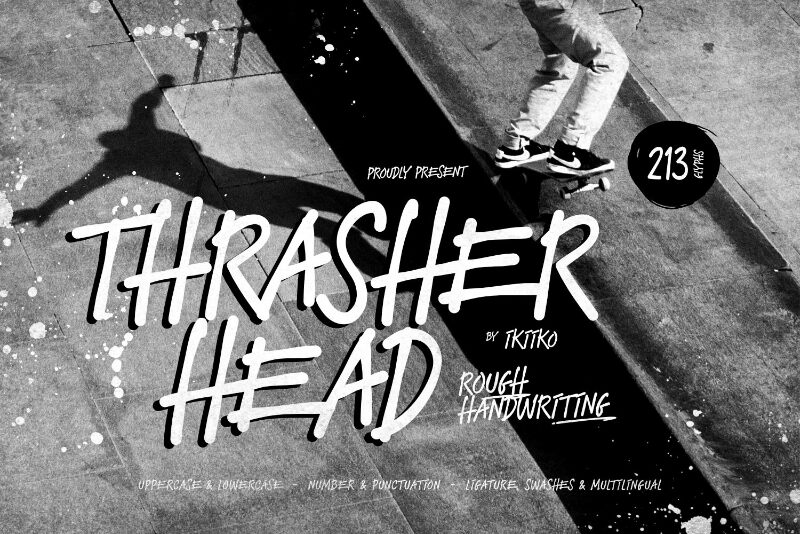
Thrasher Head font by Ikiiko Type is a free handwritten font that solves a familiar problem: getting a friendly, human touch without sacrificing clarity. Its brisk marker strokes have a light rightward slant, rounded terminals, and an even rhythm that keeps text airy and readable. The letters feel inky and confident-lively but not messy-so headlines pop without shouting.
Using Thrasher Head, you can bring warmth to streetwear tags, café menus, event flyers, product packaging, YouTube thumbnails, and sticker sheets. This free font shines on short headlines and punchy phrases; keep body copy in a neutral grotesk or geometric sans for contrast. Try slightly larger tracking to let those smooth curves breathe.